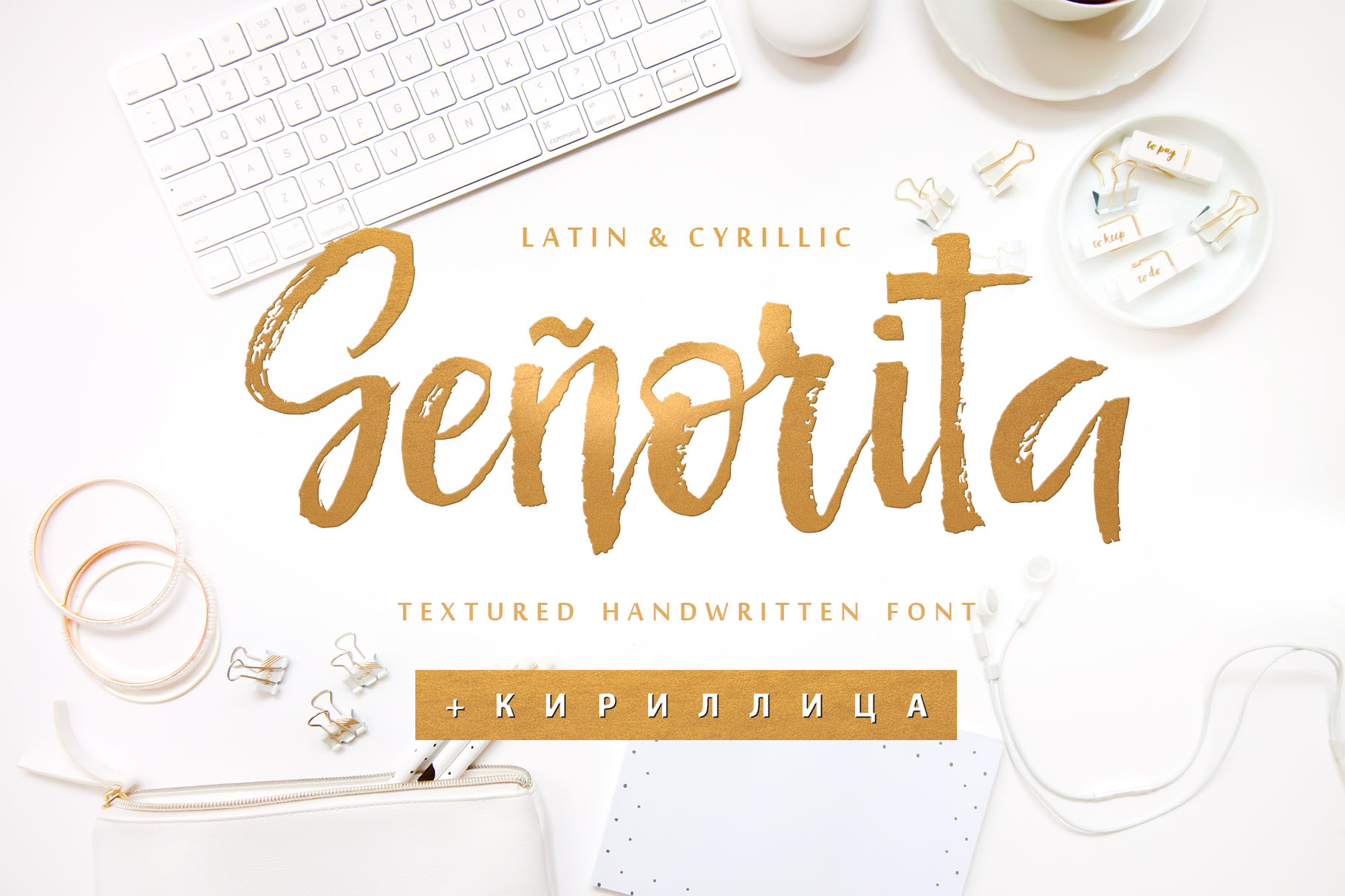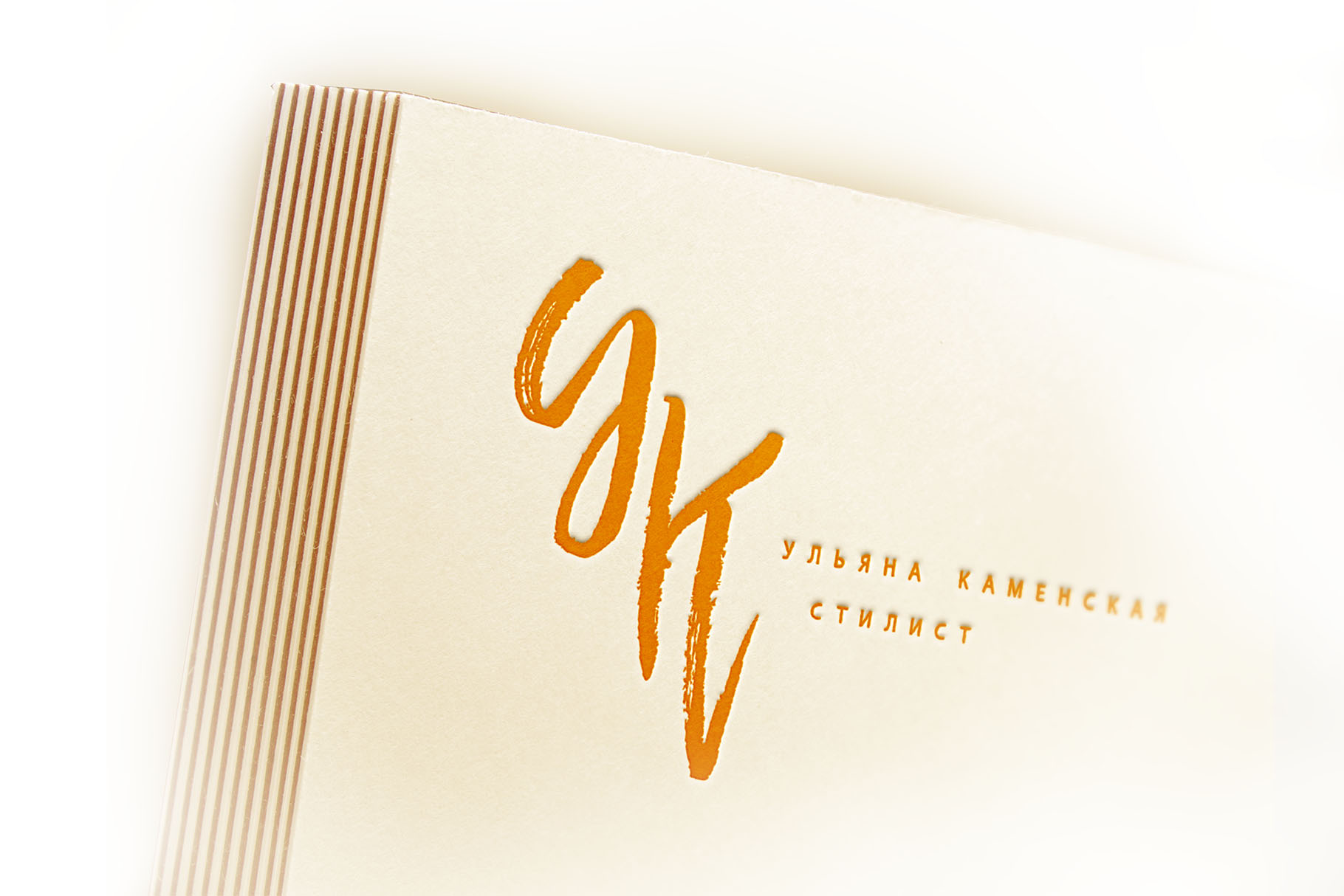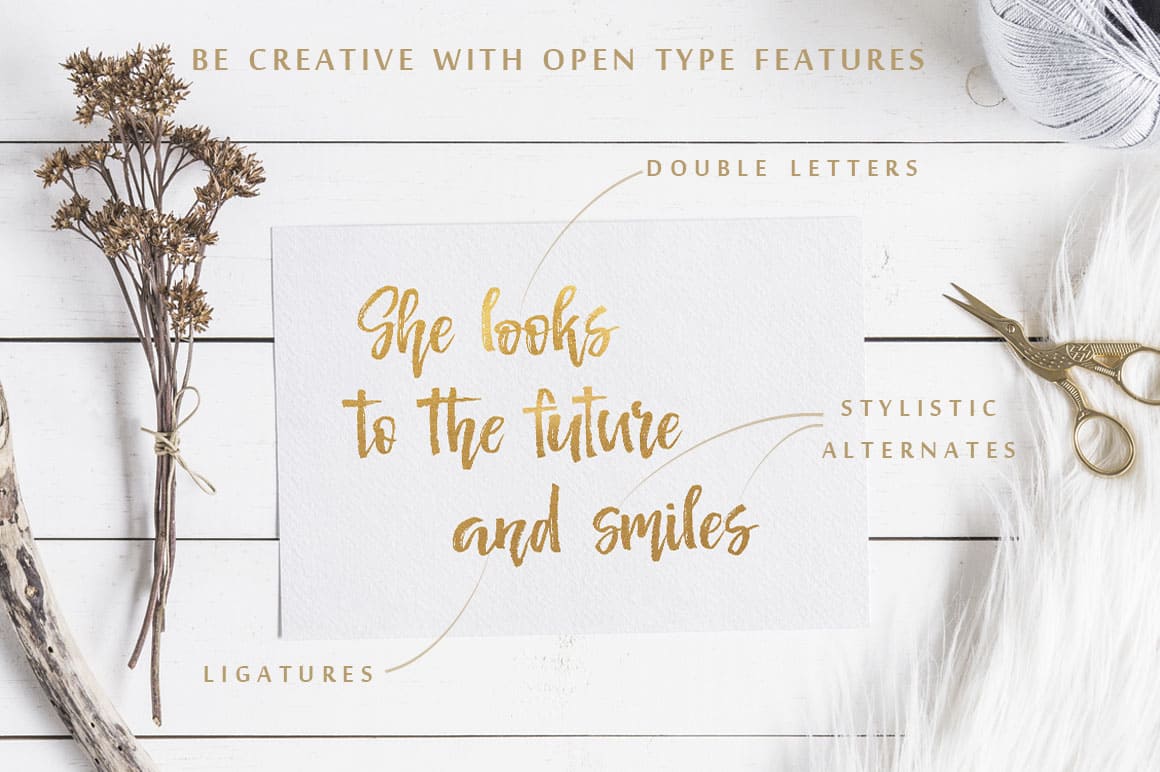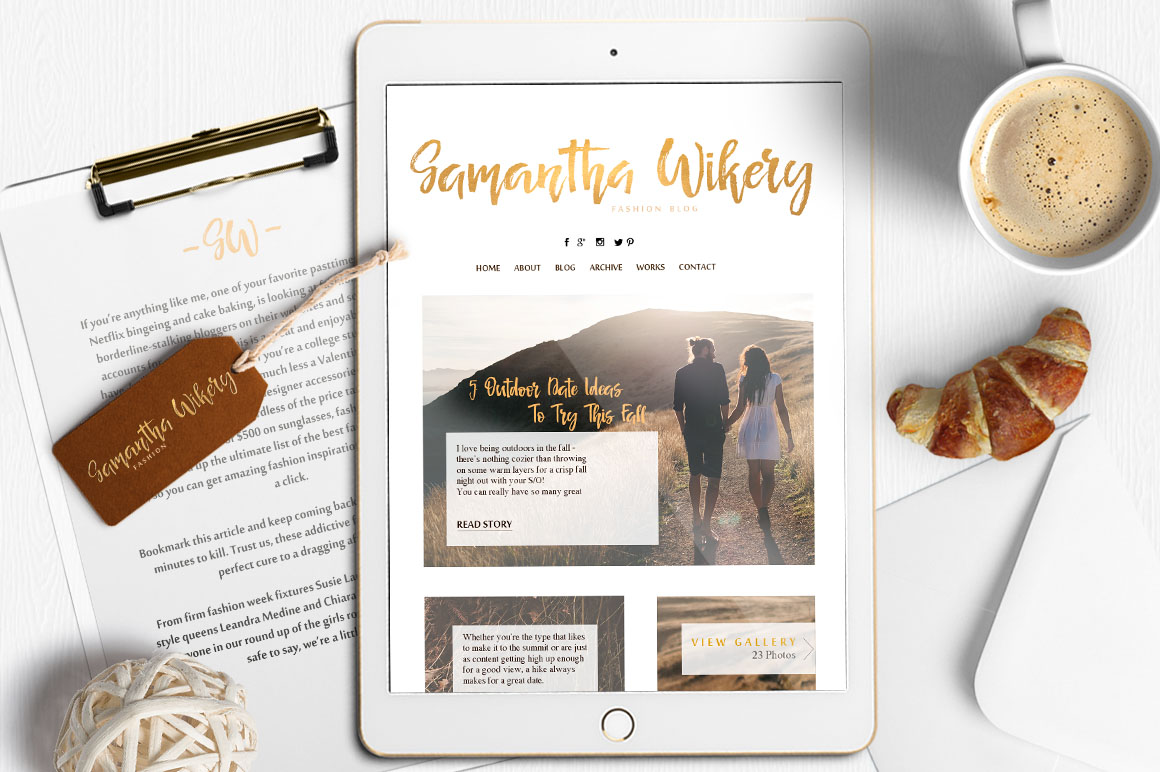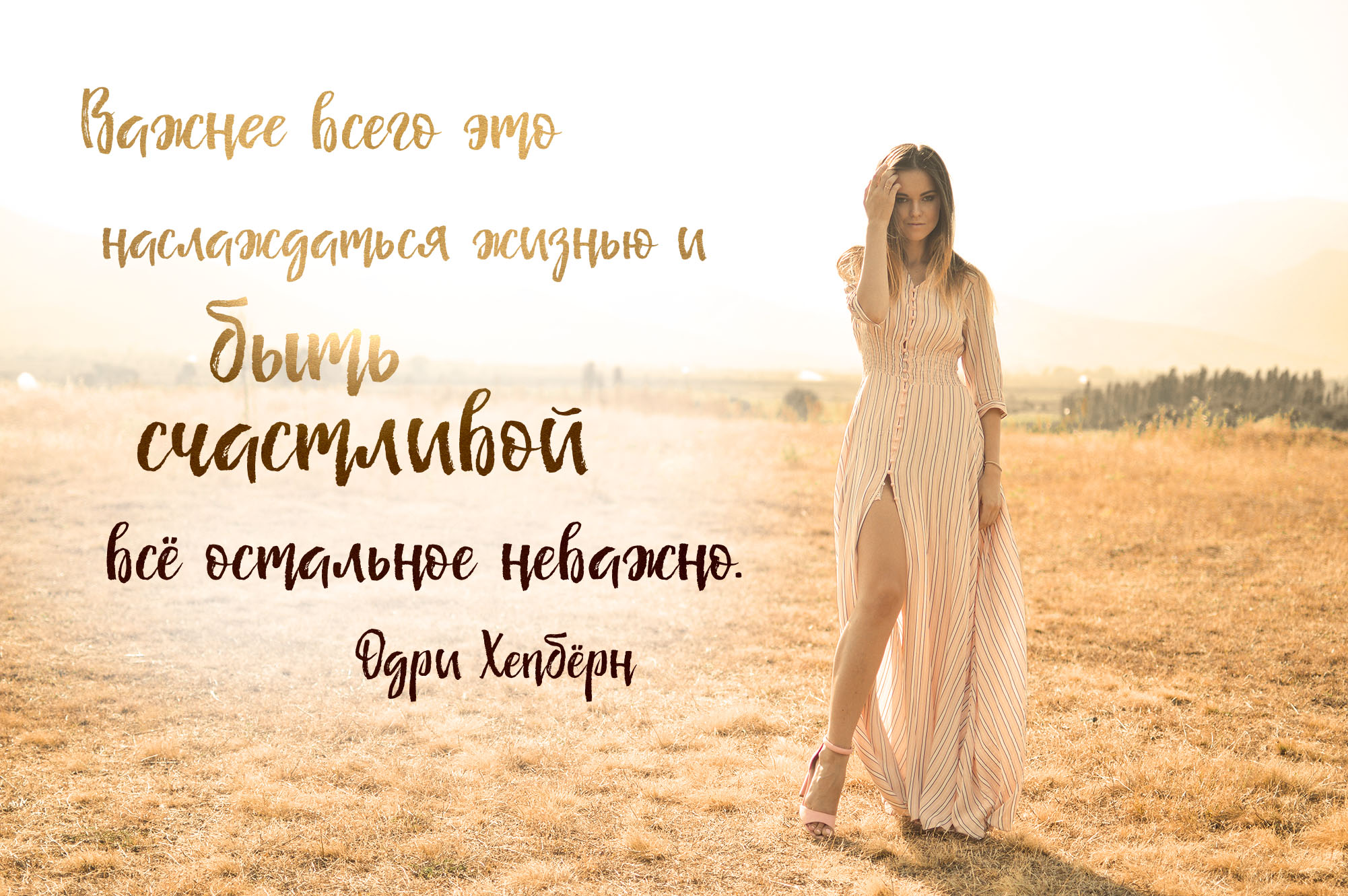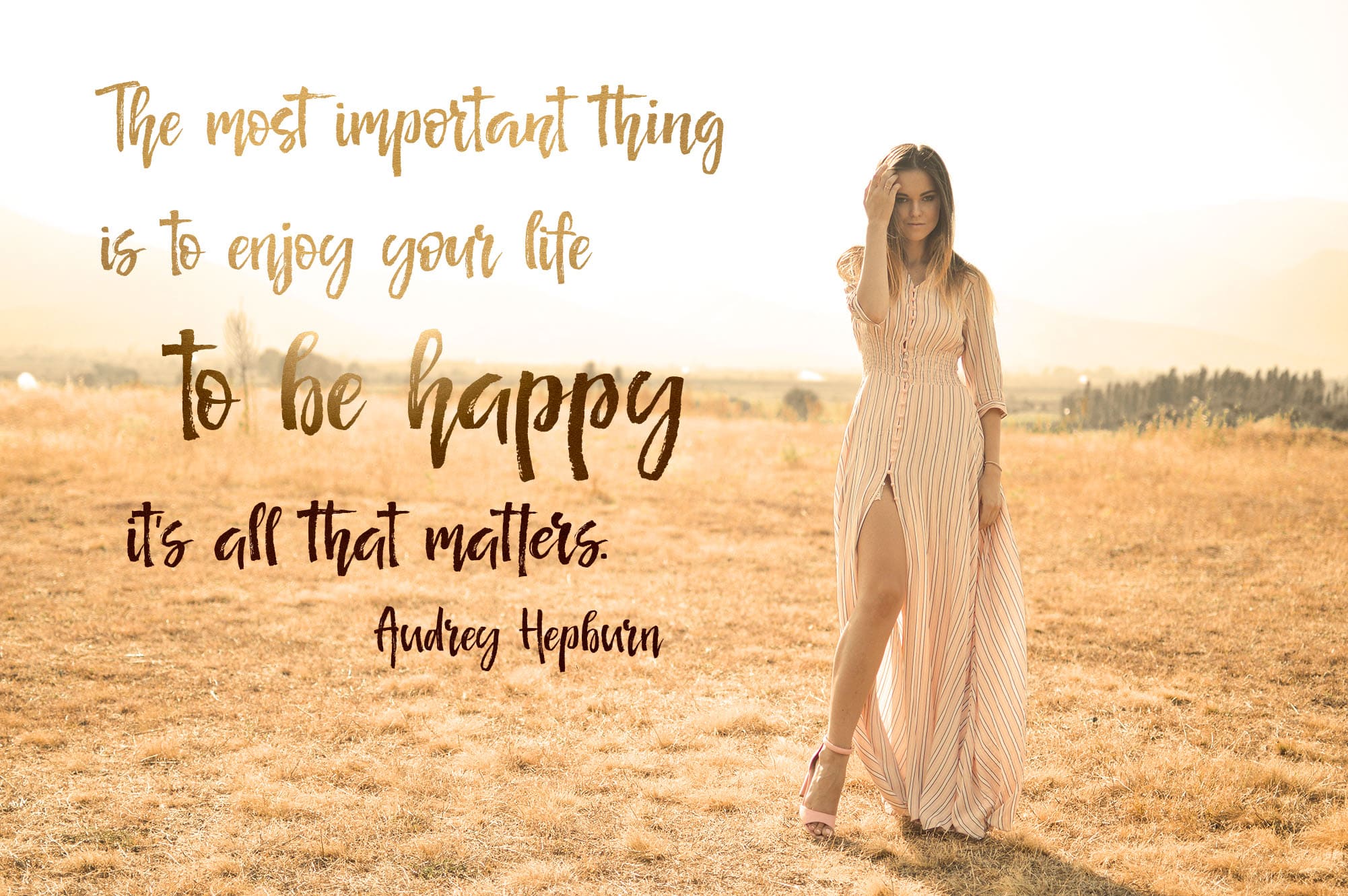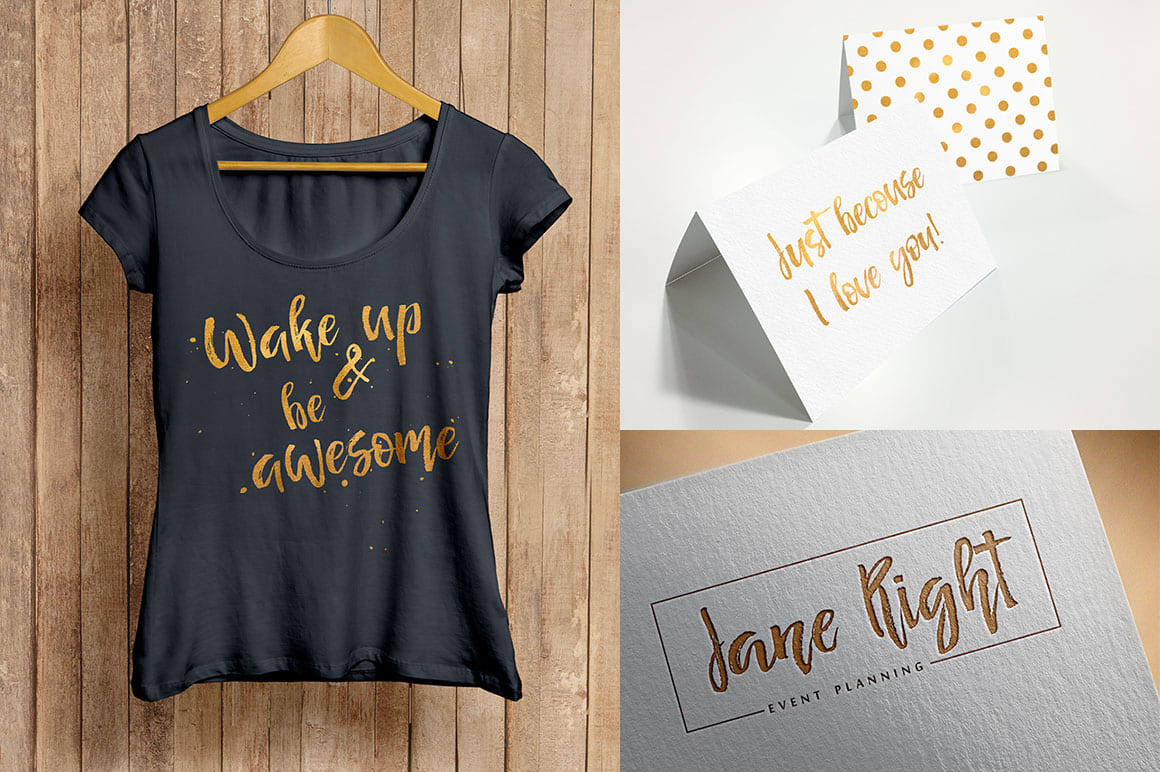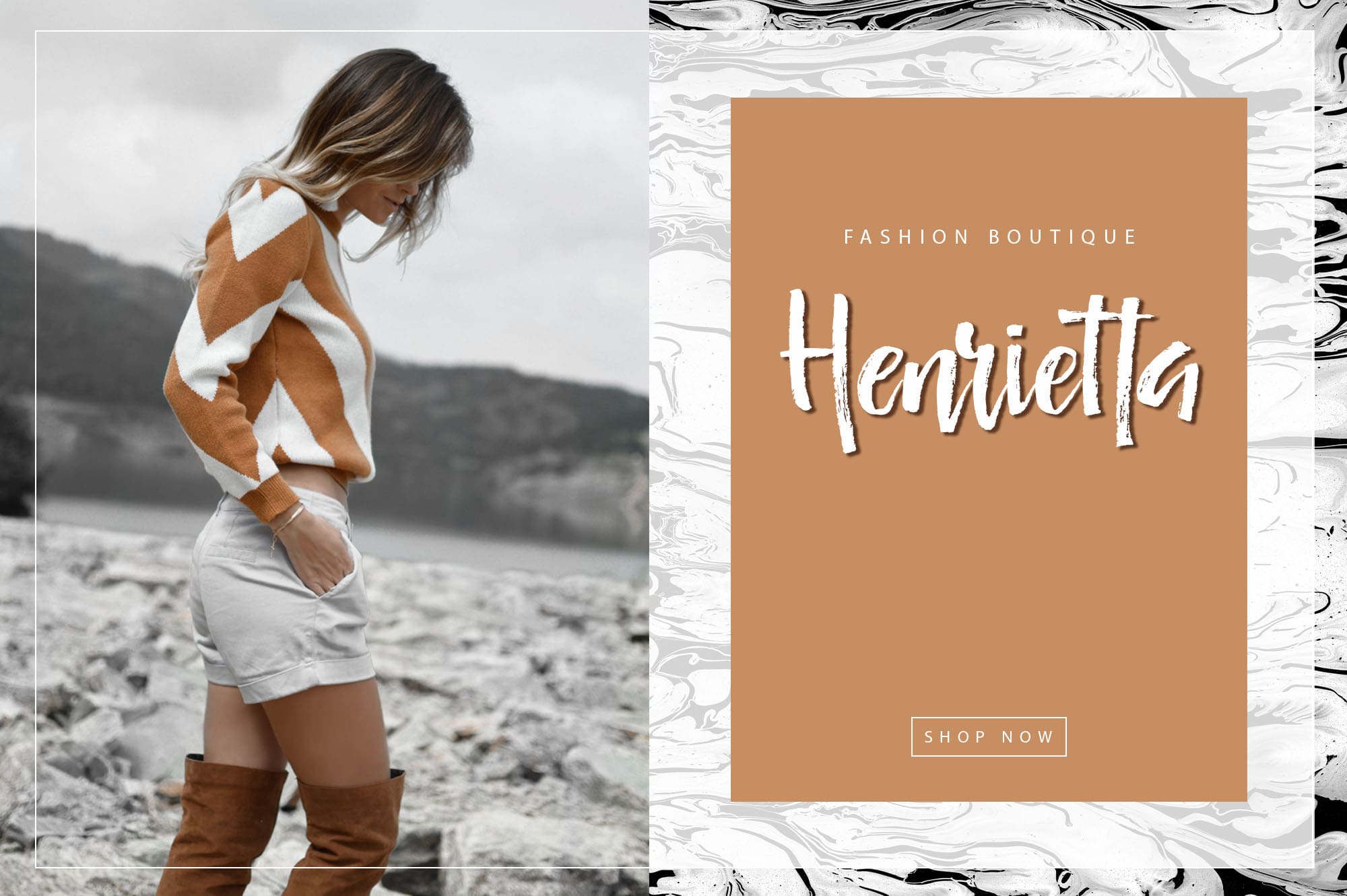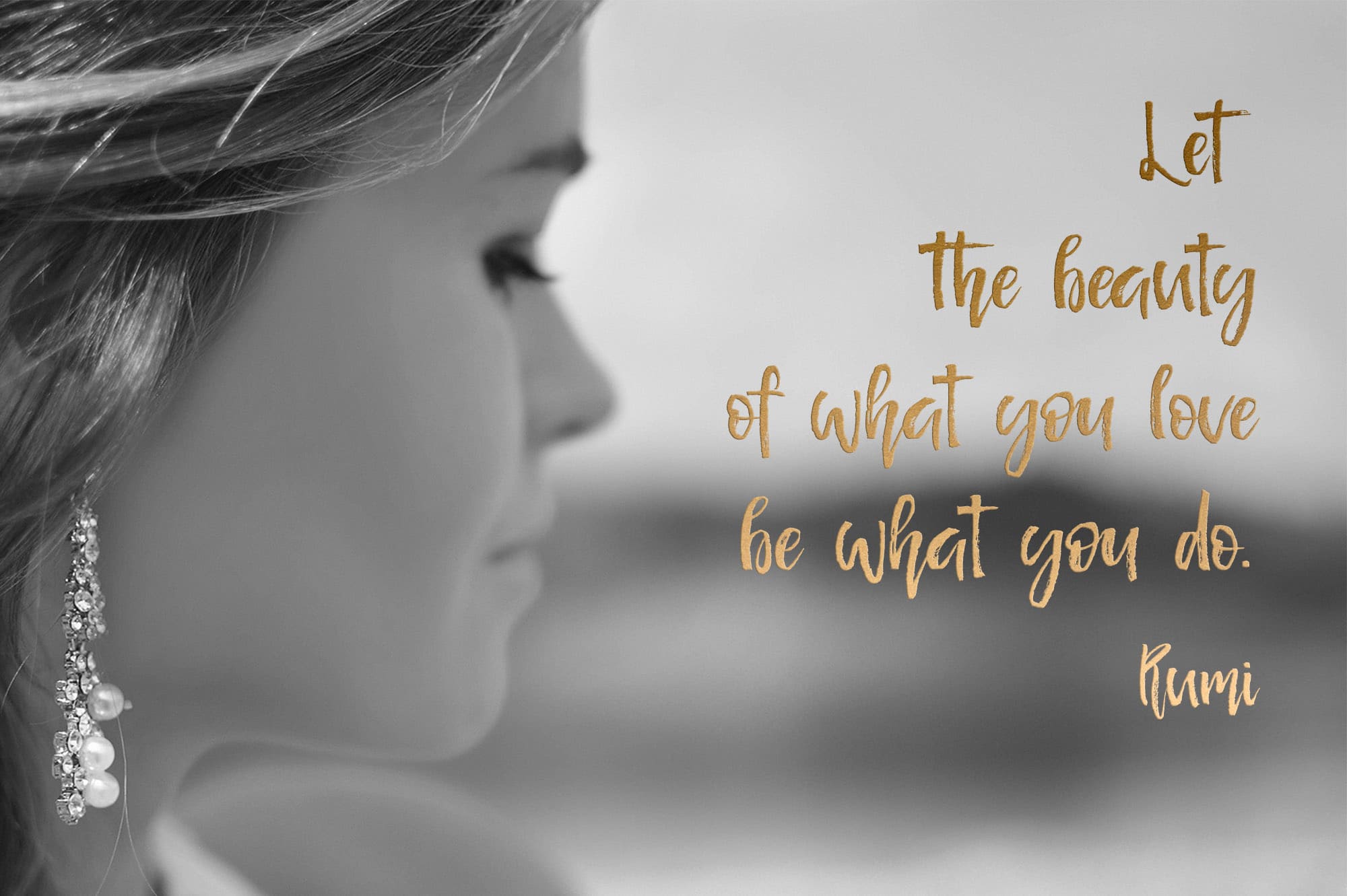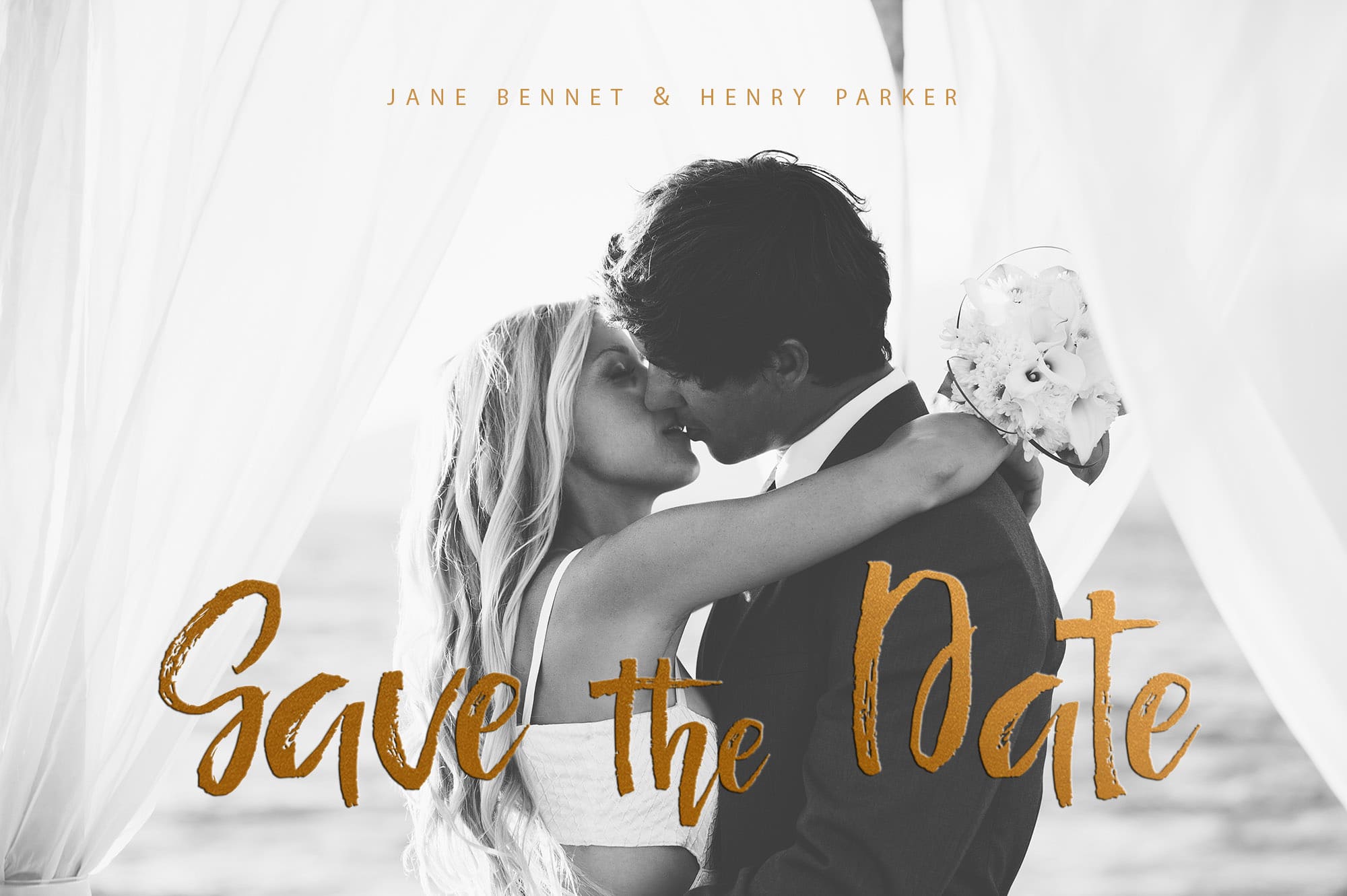
Senorita (1 font)
Hand-drawn script font Señorita contains a full set of uppercase letters and 2 full sets of lowercase letters and 43 ligatures - which can be used to create a handwritten calligraphy look. Use alternate lowercase and double-letter ligatures to create a perfect hand-painted look in your creations.
The Cyrillic part of the font contains the uppercase letters and lowercase letters and 17 ligatures, giving a realistic hand-lettered style.
Multilingual Support for 32 languages: Latin glyphs for Afrikaans, Albanian, Basque, Bosnian, Catalan, Danish, Dutch, English, Estonian, Faroese, Filipino, Finnish, French, Galician, Indonesian, Irish, Italian, Malay, Norwegian Bokmål, Portuguese, Slovenian, Spanish, Swahili, Swedish, Turkish, Welsh, Zulu.
And Cyrillic glyphs support for Russian, Belorussian, Bulgarian, Ukrainian, and Kazakh languages.